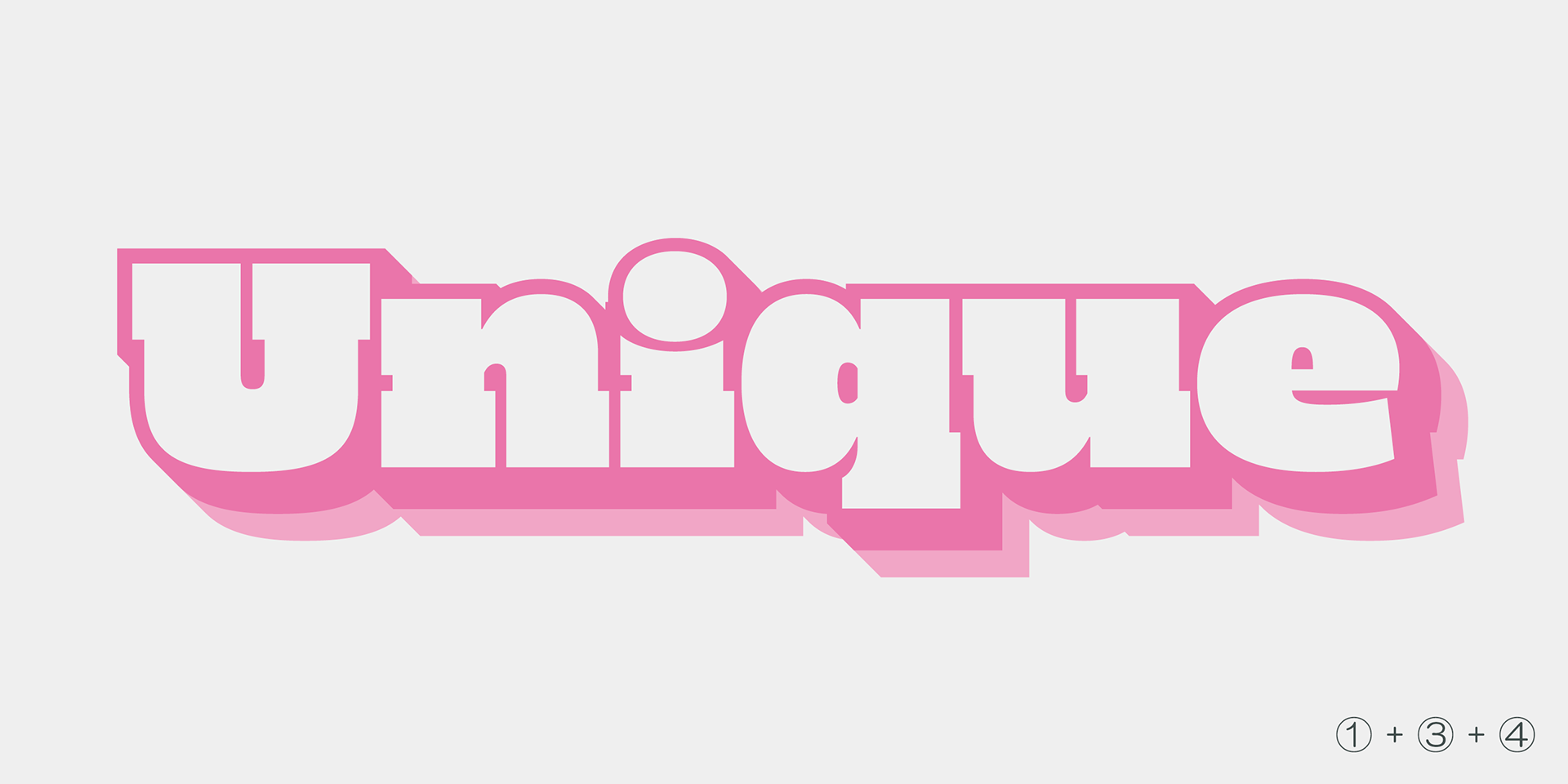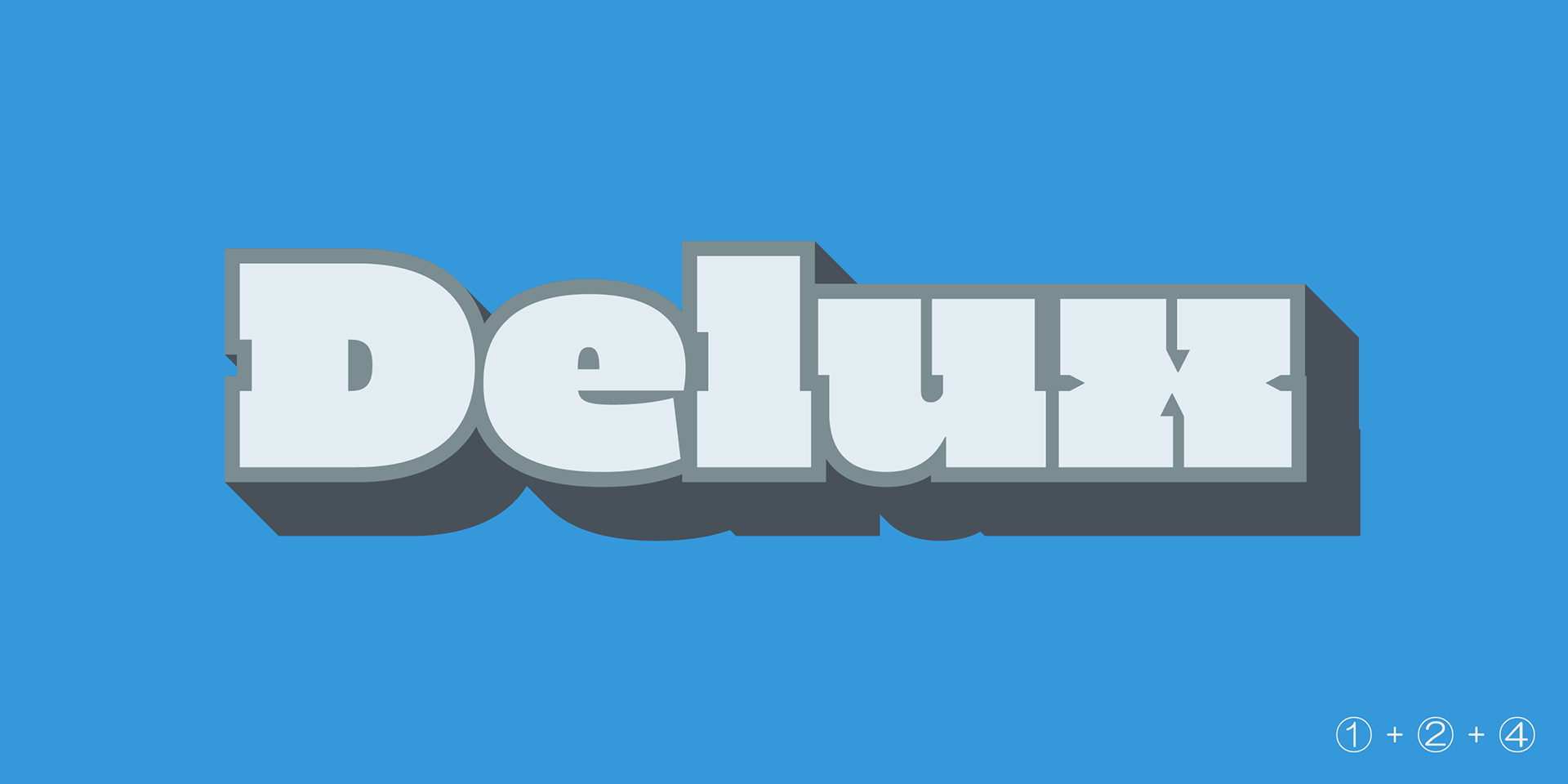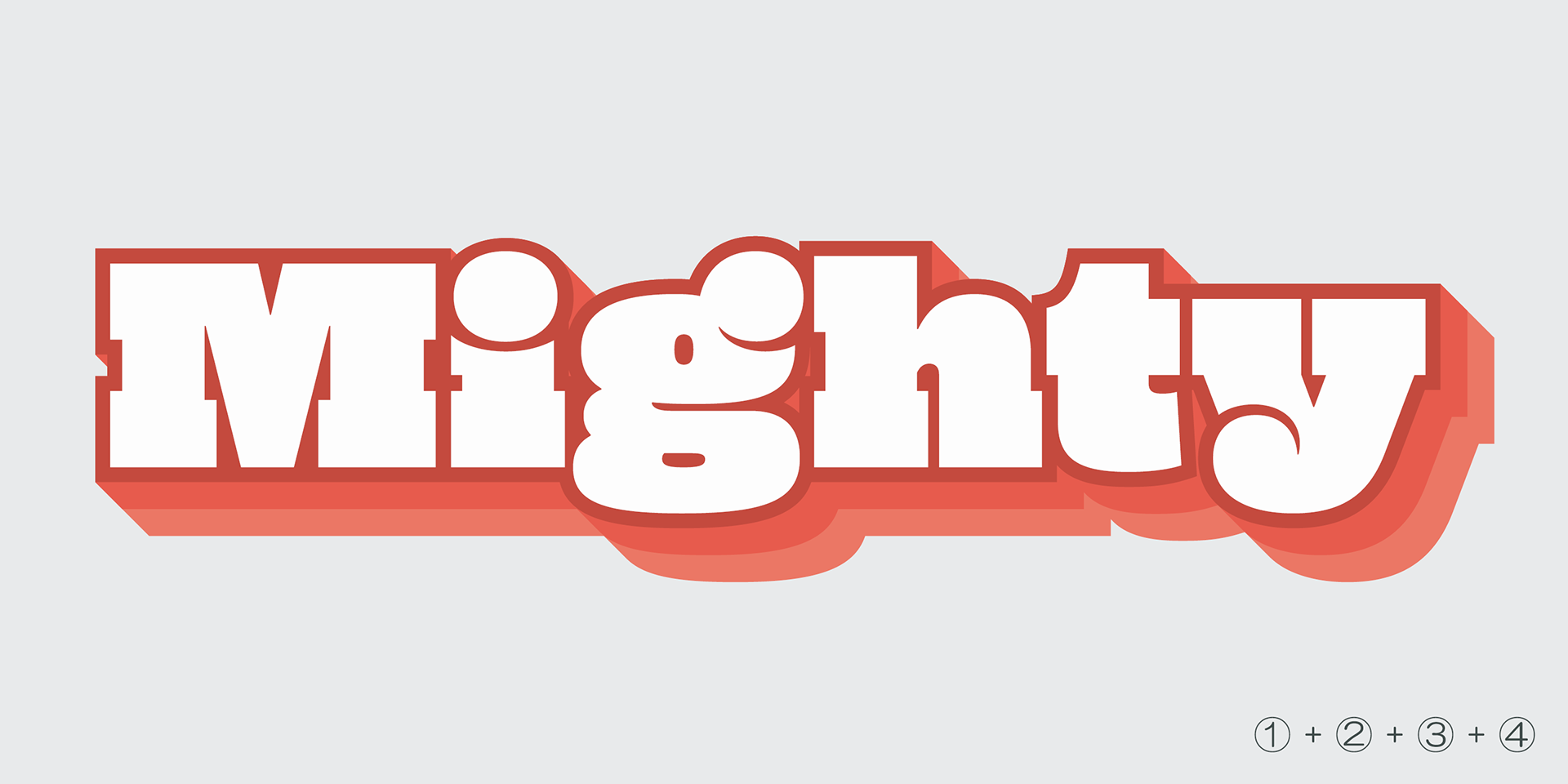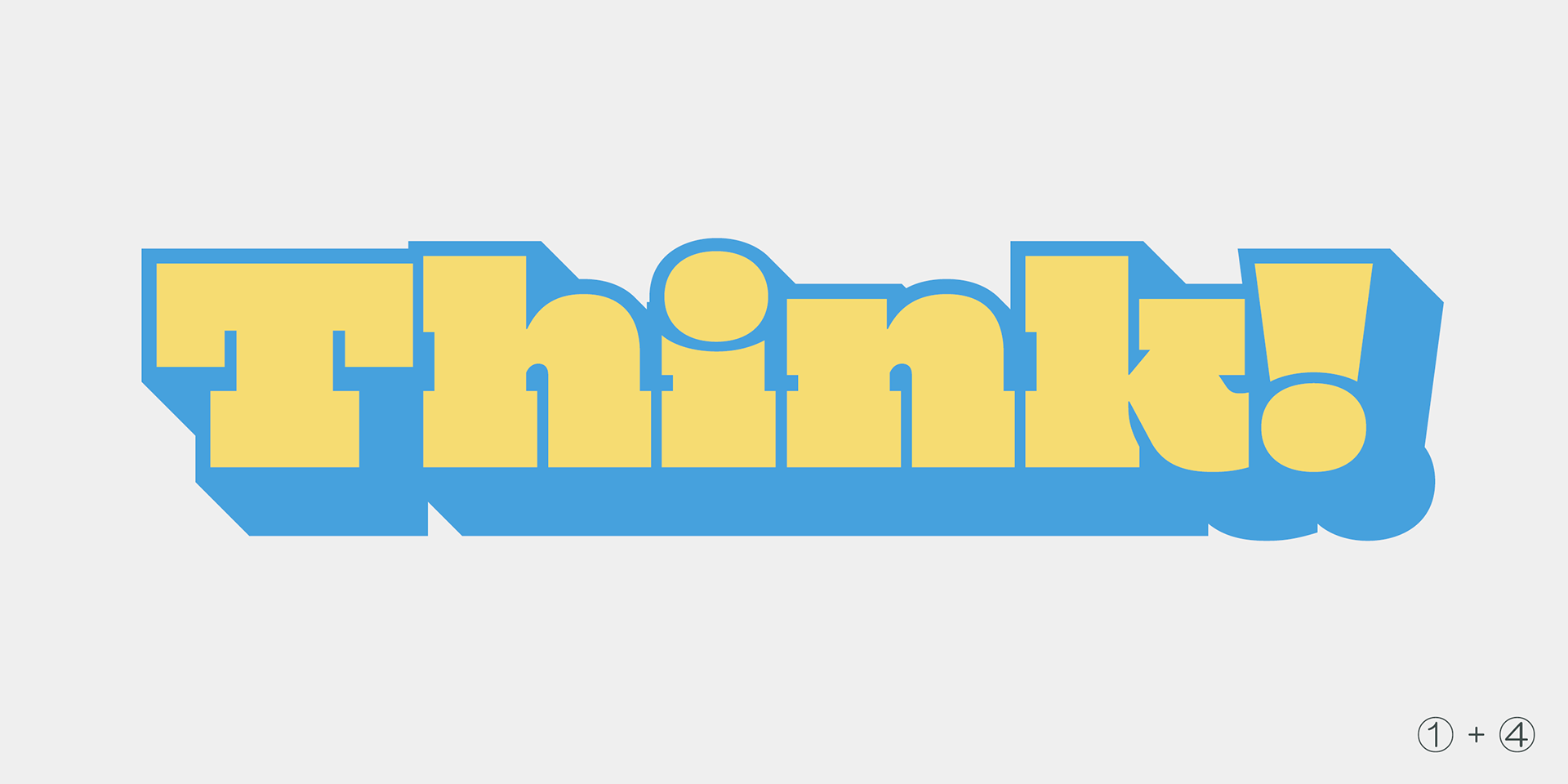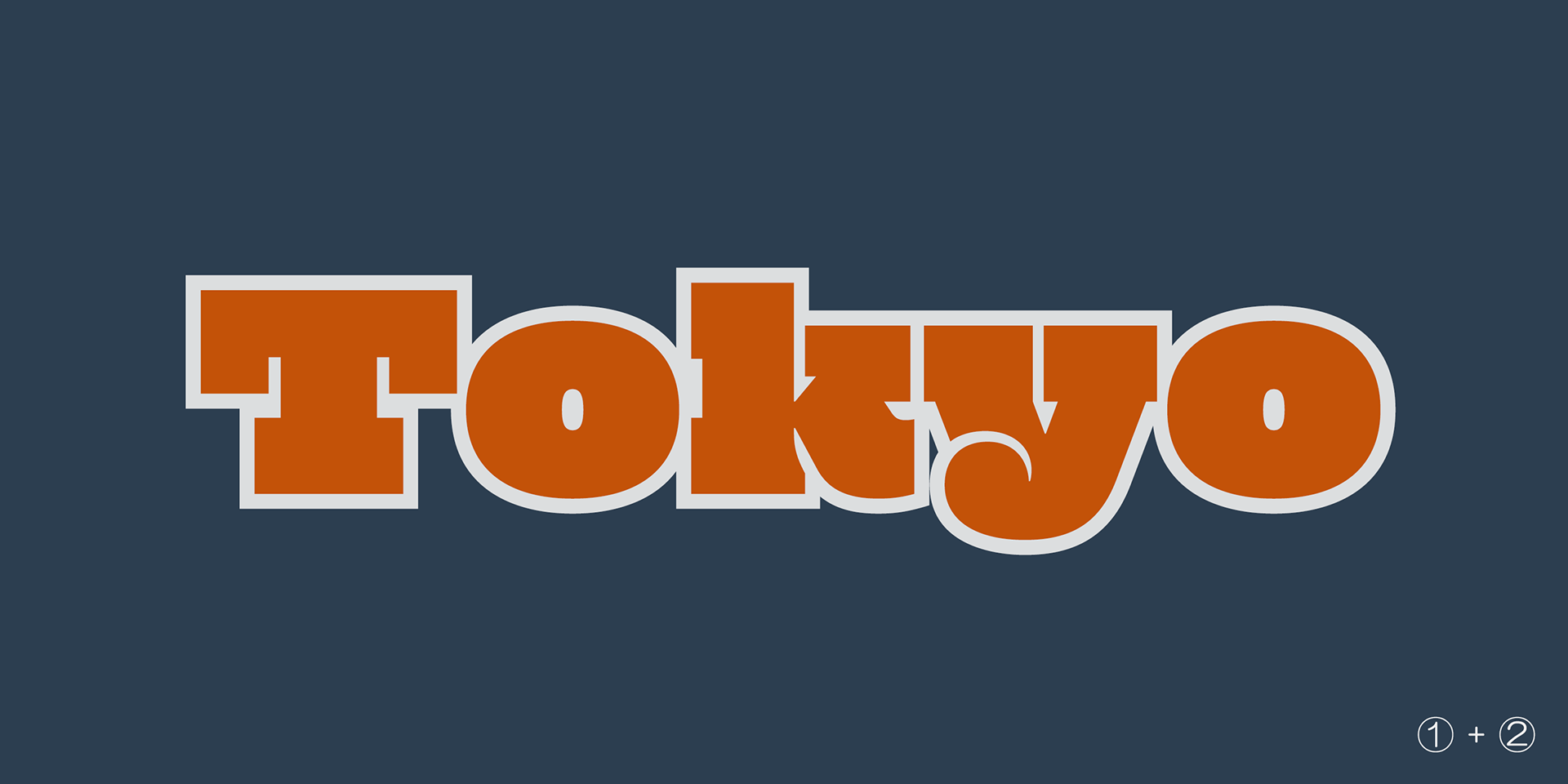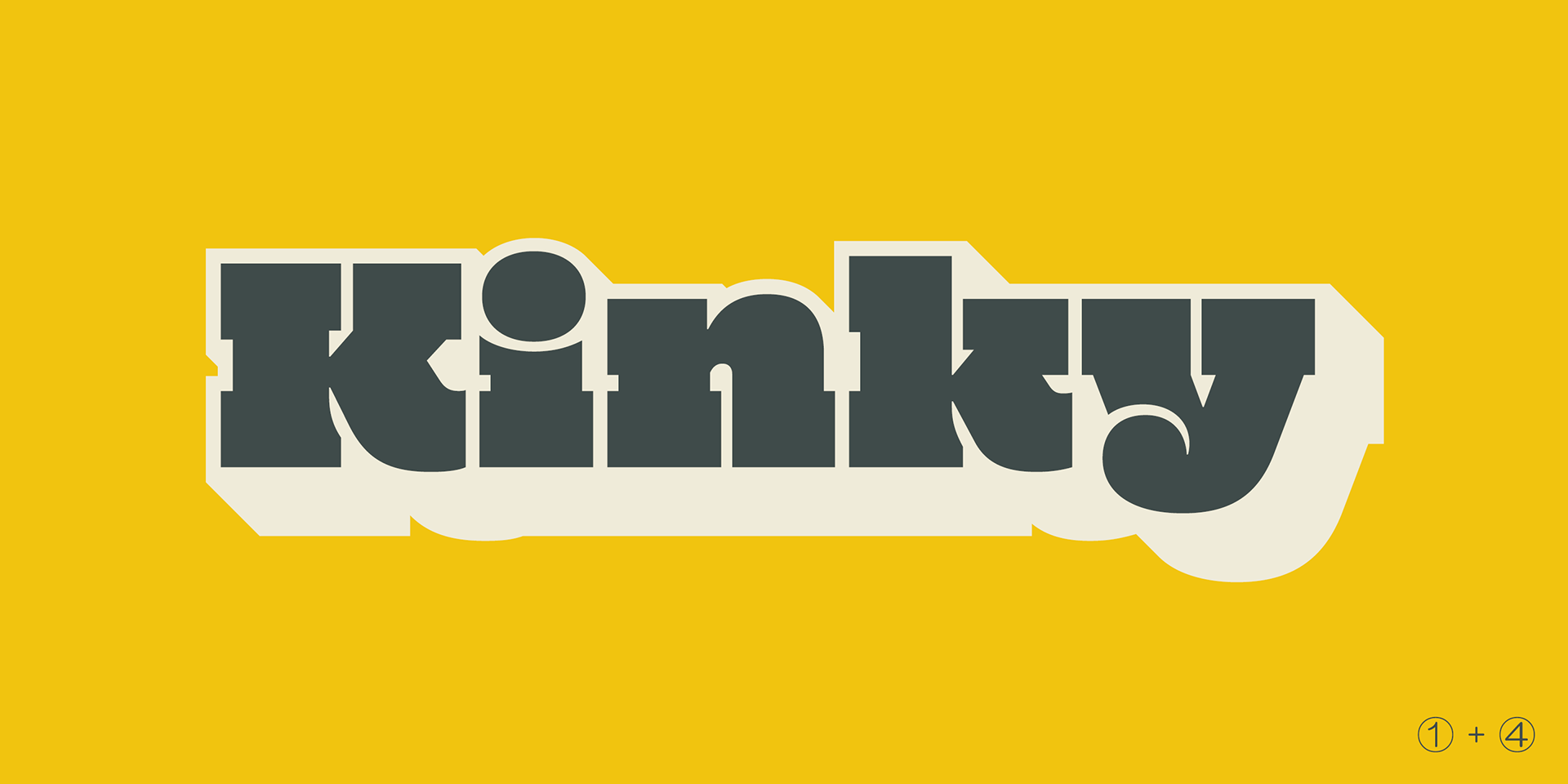
Mighty Slab
Mighty Slab is a bold and ultra-heavy slab-serif typeface designed for titles, captions, and logos.
Its strong, blocky letterforms deliver maximum impact, making it perfect for attention-grabbing headlines and powerful brand statements.
Extraordinary impact and super big x-height for more visual conspicuousness.
4 Layered color font! Simply, Stack same text with each styles in the same position.
Mighty Slab One can also be used independently.